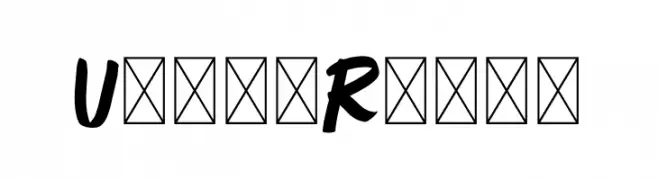
Graffiti-inspired font with bold, dripping letters and an urban aesthetic.
A graffiti-inspired font with elongated, angular characters and an urban aesthetic.
A bold, graffiti-inspired font with dynamic strokes and urban flair.
A bold, spray-painted font with a gritty, urban texture.
A bold, distressed font with a grunge, urban aesthetic.
A bold, angular font with an urban, edgy style.
A bold, graffiti-inspired font with dynamic, irregular strokes and an urban feel.
A bold, hand-drawn font with an edgy, urban feel.
A bold, distressed font with a halftone texture and urban flair.
A bold, graffiti-inspired font with an urban, hand-drawn style.
A bold, distressed font with a grunge texture and rugged, urban style.
A gritty, urban font with a distressed, graffiti-inspired style.
A bold, graffiti-inspired font with a hand-drawn, urban aesthetic.
A bold, graffiti-inspired font with an urban, artistic style.
A bold, graffiti-inspired font with a dripping effect, ideal for urban-themed designs.
A bold, dripping graffiti-style font with an edgy, urban aesthetic.
A bold, graffiti-inspired font with a playful, urban aesthetic.
A bold, distressed font with a gritty, urban street art style.
A bold, textured sans-serif font with an urban, distressed style.
A bold, distressed font with a grunge texture and urban flair.
A bold, graffiti-inspired font with thick, rounded strokes and a playful urban style.
A bold, distressed font with a grunge, urban aesthetic.
A bold, graffiti-inspired font with dynamic strokes and urban flair.